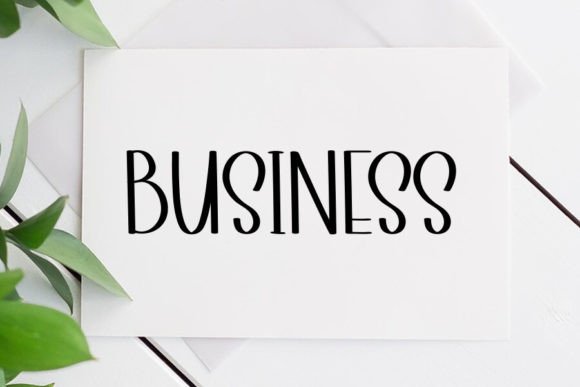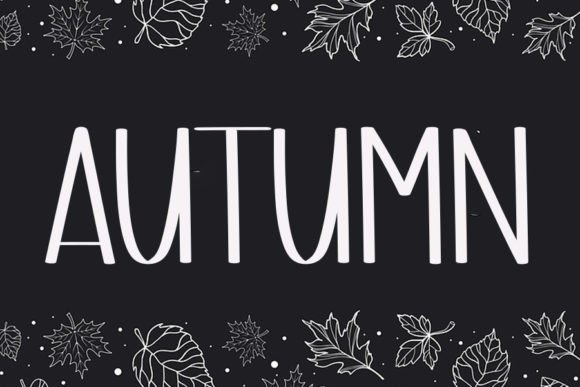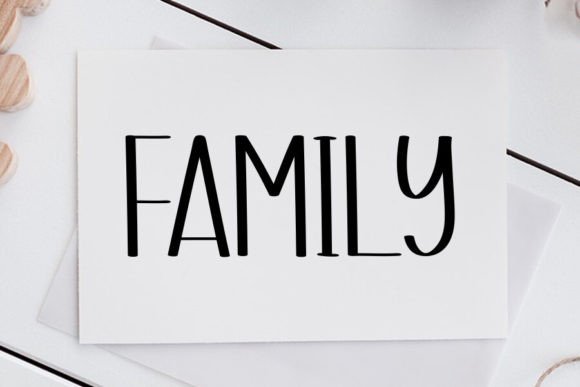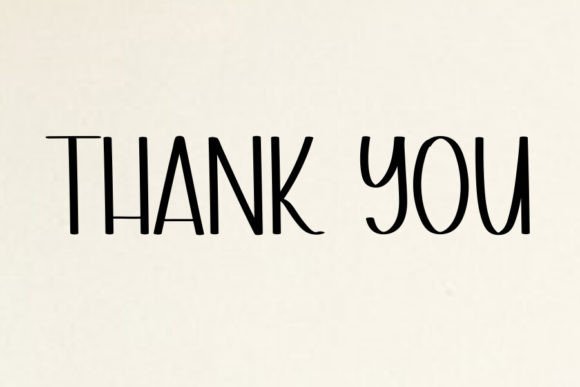
Introducing Beloved Font: Elevate Your Designs with Timeless Elegance
In the world of typography, fonts play a crucial role in conveying the tone and personality of a design. For designers and crafters seeking to add a touch of sophistication and class to their projects, the Beloved Font is an excellent choice. This trendy handwritten sans-serif font boasts a contemporary atmosphere and impeccable form, making it perfect for a wide range of design applications.
Inspired by Timeless Classic Calligraphy
The Beloved Font draws inspiration from timeless classic calligraphy, infusing it with a modern twist. The result is a font that exudes elegance and refinement, making it ideal for designers who want to create stunning visual content. Whether you’re working on a logo, branding materials, or marketing collateral, the Beloved Font is sure to impress.
Key Features of Beloved Font
- Trendy Handwritten Sans-Serif Font: The Beloved Font features a unique handwritten sans-serif design that sets it apart from more traditional fonts.
- Contemporary Atmosphere: With its modern aesthetic, this font is perfect for designers who want to create fresh and contemporary designs.
- Impeccable Form: The Beloved Font boasts impeccable form, ensuring that your designs look polished and professional.
- Elegance and Class: This font adds a touch of elegance and class to any design project, making it perfect for high-end branding and marketing materials.
The Beloved Font is an excellent choice for designers and crafters who want to elevate their designs with a touch of sophistication. Whether you’re working on a personal project or a client’s brief, this font is sure to impress. Here are some design applications where the Beloved Font shines:
- Logo Design: Create stunning logos that exude elegance and refinement with the Beloved Font.
- Branding Materials: Use this font to create consistent branding across various marketing materials, including business cards, brochures, and letterheads.
- Marketing Collateral: Add a touch of sophistication to your marketing materials, including flyers, posters, and social media graphics.
- Digital Products: Use the Beloved Font to create visually appealing digital products, such as ebooks, courses, and software.
Tips for Using Beloved Font Effectively
To get the most out of the Beloved Font, here are some tips to keep in mind:
- Pair with Neutral Backgrounds: Pair the Beloved Font with neutral backgrounds to create stunning visual contrast.
- Experiment with Font Sizes: Experiment with different font sizes to create visual hierarchy and emphasis.
- Use for Headings and Titles: Use the Beloved Font for headings and titles to add a touch of elegance and sophistication.
In conclusion, the Beloved Font is an excellent choice for designers and crafters seeking to add a touch of elegance and class to their design projects. With its trendy handwritten sans-serif design, contemporary atmosphere, and impeccable form, this font is perfect for a wide range of design applications. By incorporating the Beloved Font into your design workflow, you’ll be able to create stunning visual content that impresses and engages your audience.